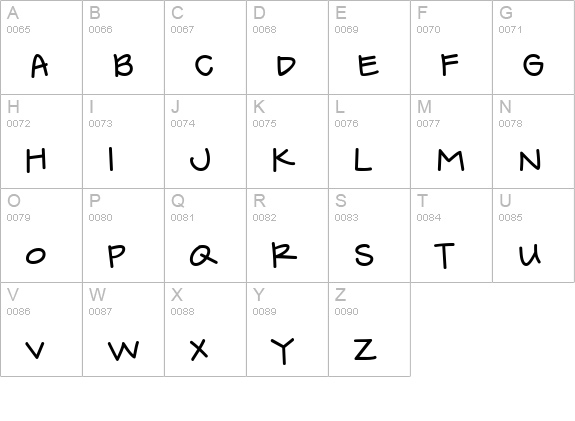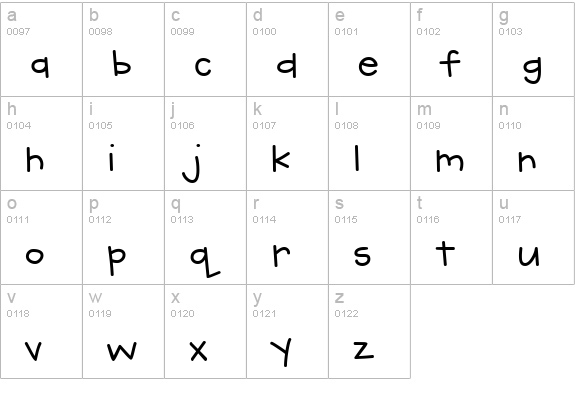
CK Handprint Font Details
Introducing CK Handprint font, a charming and playful typeface that exudes a warm and friendly feel. With its handwritten style, this font adds a personal touch to any project, from greeting cards to branding materials. CK Handprint is perfect for adding a human element to your designs, making them feel more approachable and inviting. Best of all, CK Handprint font is completely free to download at FontsMarket.com. Whether you're a designer looking to add a unique flair to your work or someone who simply appreciates the beauty of handcrafted fonts, CK Handprint is a versatile choice that will surely delight. Add a touch of whimsy to your projects today with CK Handprint font!